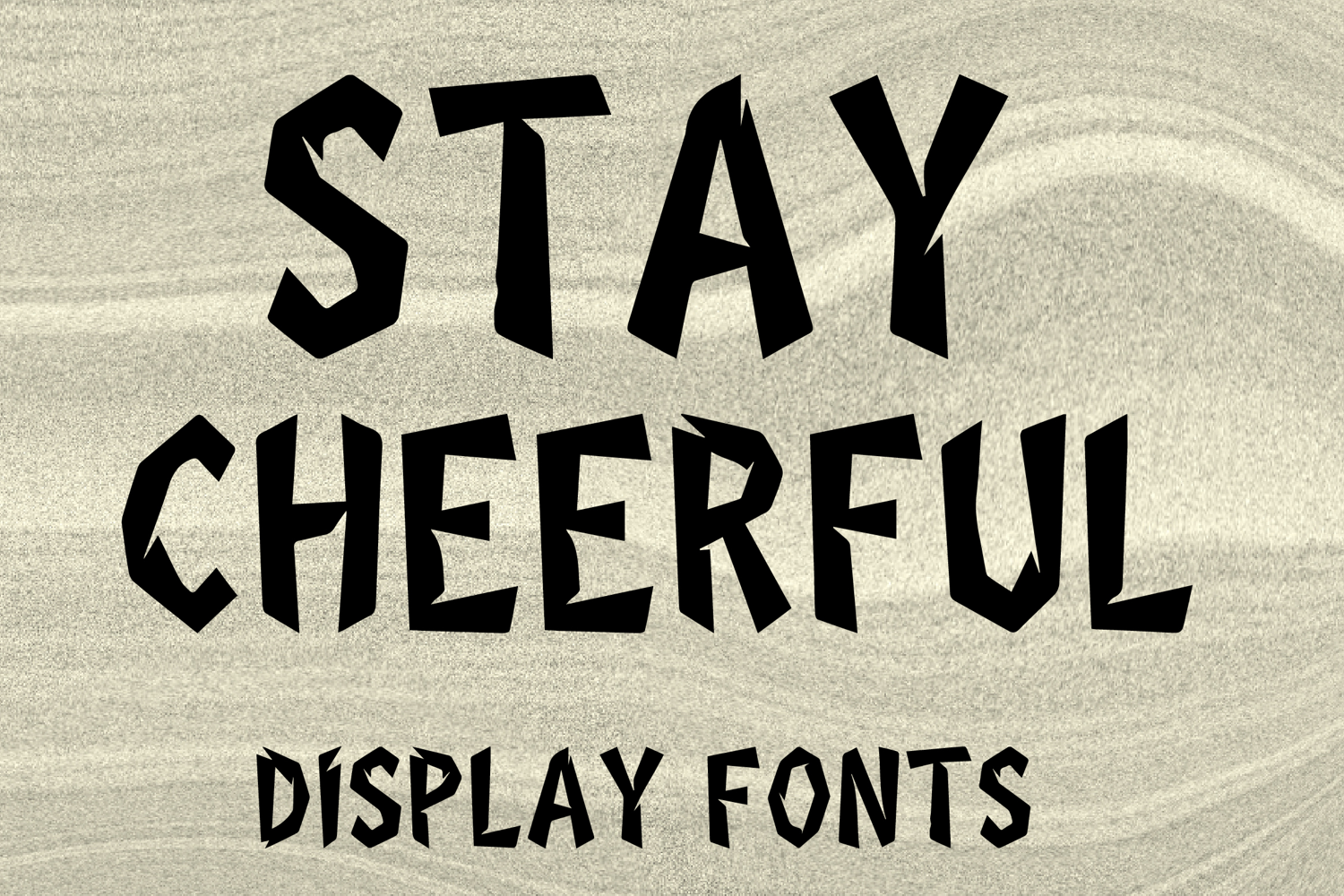
STAY CHEERFUL
STAY CHEERFUL is a bold decorative display font with a sharp handcrafted style and edgy geometric character. Its uppercase letterforms feature angular cuts, uneven pointed edges, and strong irregular shapes that create a striking, energetic, and eye-catching look. Designed with uppercase letters A–Z and numbers 0–9, STAY CHEERFUL is perfect for branding, posters, packaging, headlines, logos, social media graphics, and creative projects that need a bold and memorable statement.